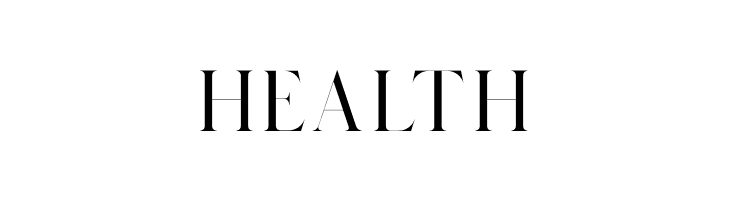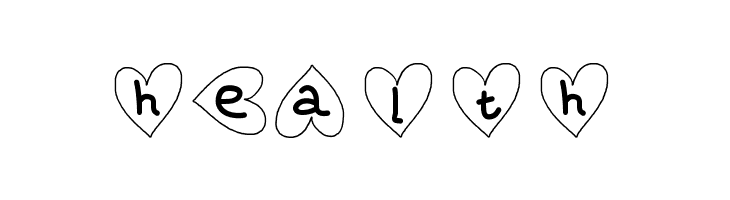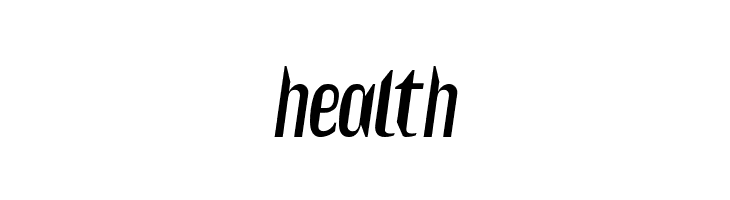
( INKsTYPIA - Andi Winarno - inkstypia-std.blogspot.com )
A bold, textured font with a distressed, vintage appearance.
( Ferdiansyah - creativemarket.com/ijemrockart )
A dynamic brush-style font with energetic, hand-painted strokes.
( Filippo Morara - be.net/filippomorara )
An angular, bold, and decorative font with a mysterious, ancient script vibe.
( Gaelleing )
A playful, heart-themed font with bold, rounded characters enclosed in heart shapes.
( Genilson L. Santos )
A classic serif font with medium contrast and elegant strokes.
( Ferdiansyah - creativemarket.com/ijemrockart )
An elegant script font with flowing, ornate letterforms and intricate swashes.
( Fadhil Aqsa - creativemarket.com/Meutuwah )
An elegant, flowing script font with ornate, cursive letterforms.
( Emtheen Studio - Muhammad Dimas - instagram.com/dimsngrho )
A playful and elegant script font with flowing, cursive characters.
( Craft Supply Co. - creativemarket.com/craftsupplyco )
A high-contrast, elegant serif font with sharp serifs and modern styling.
( IYBI - Radi Safi - ifyoubuildit.com.au/ )
A sleek, modern italic font with elongated, elegant characters.